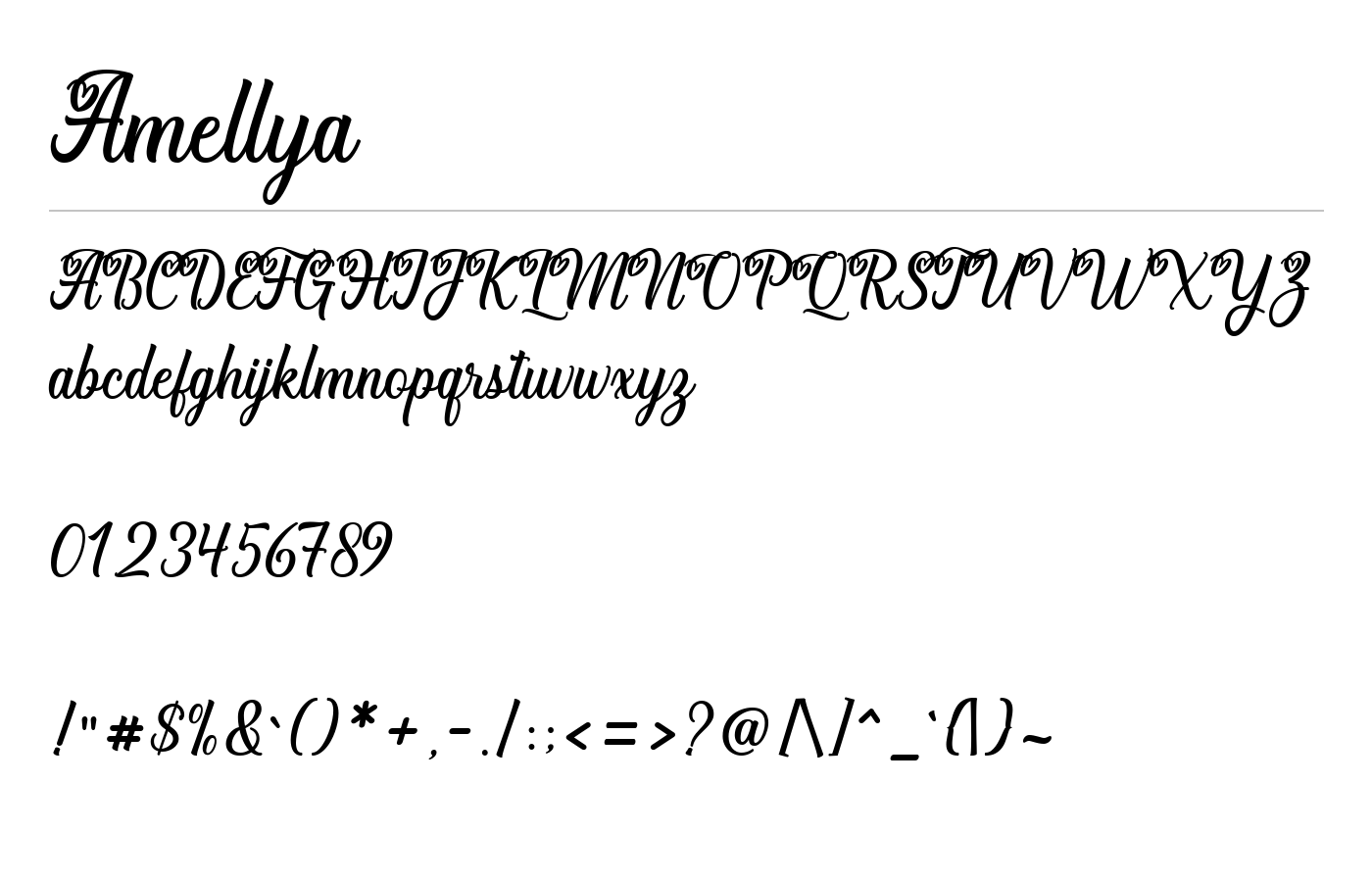
Amellya is a graceful script font with elegant, flowing strokes and a delicate contrast between thick and thin lines, giving it a refined, hand-lettered feel. Its tall x-height and smooth curves make it both stylish and readable, perfect for adding a touch of sophistication to invitations, branding, and decorative text. This font works beautifully for projects that aim to convey elegance, warmth, and a personal, artistic touch.
Amellya Font